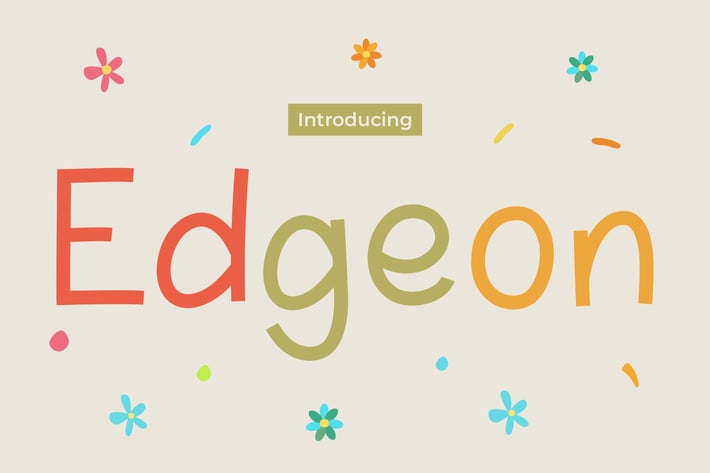
Kids Font - Edgeon
Edgeon is a vibrant and playful script font designed to capture the youthful and energetic spirit of children's projects. Its cheerful style makes it perfect for school-related designs, from logos that need to be friendly and inviting to posters that must catch the eye of young learners. Edgeon enhances quotes with its fun and approachable feel, and it crafts invitations that promise excitement and creativity. Whether used in greetings, packaging, or branding, Edgeon ensures each design is engaging and full of life. This font is also excellent for book covers, event materials, and advertising, providing a consistently playful tone ideal for attracting attention in any kid-focused context.